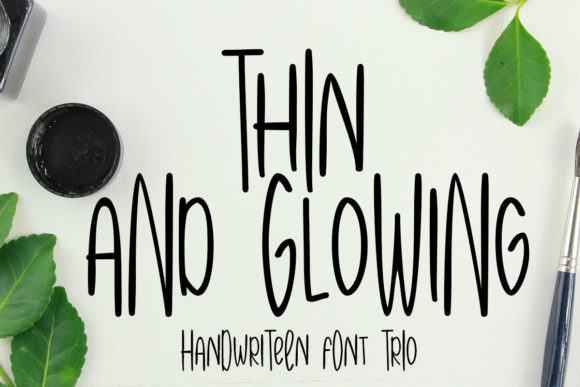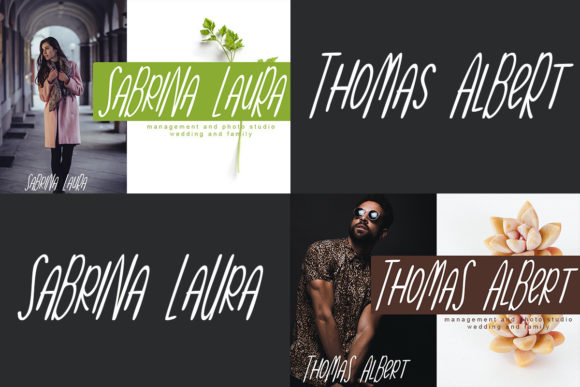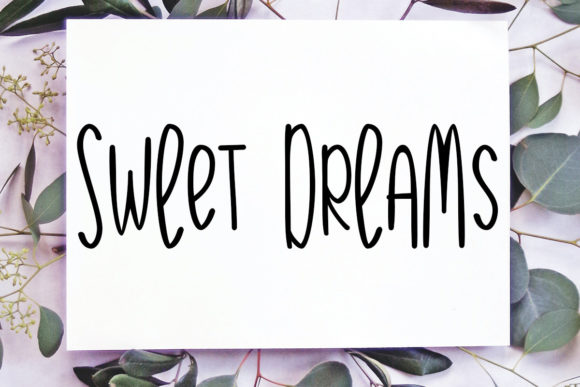
About Thin and Glowing Font
Thin and Glowing is a cute and simple lettered handwritten font that can be used for all chalkboard quotes or teaching material! Its authentic look will add a personal and realistic feel to your designs.